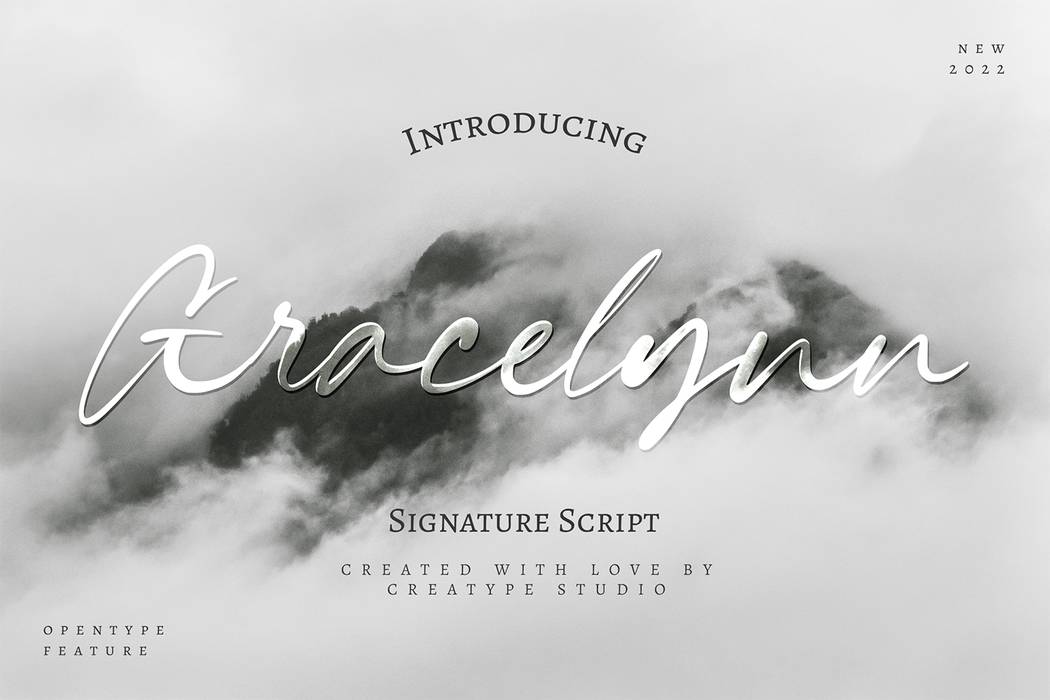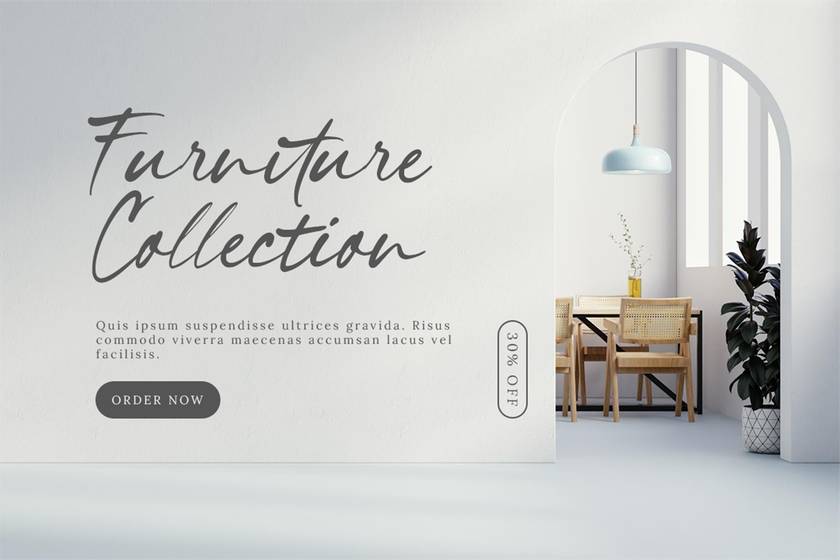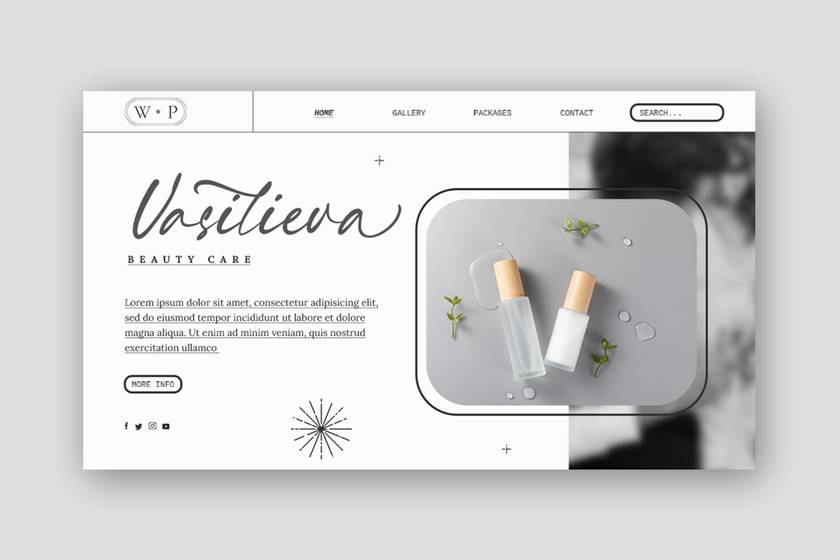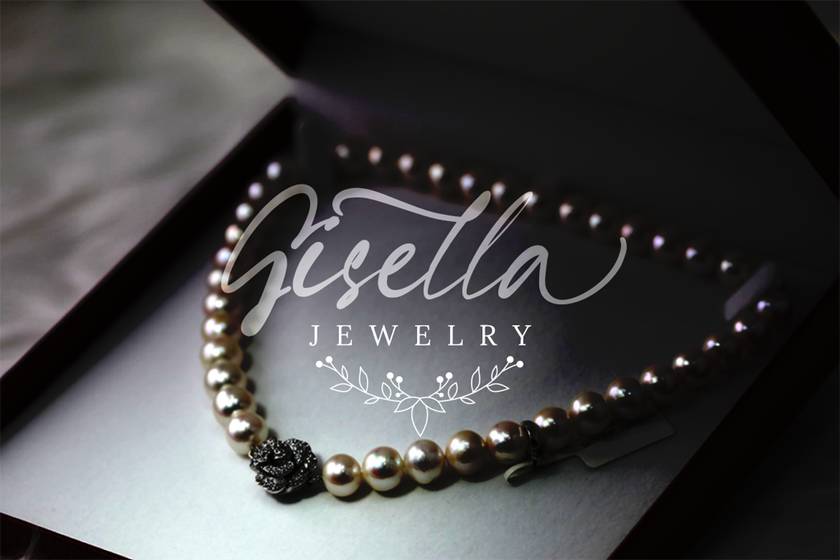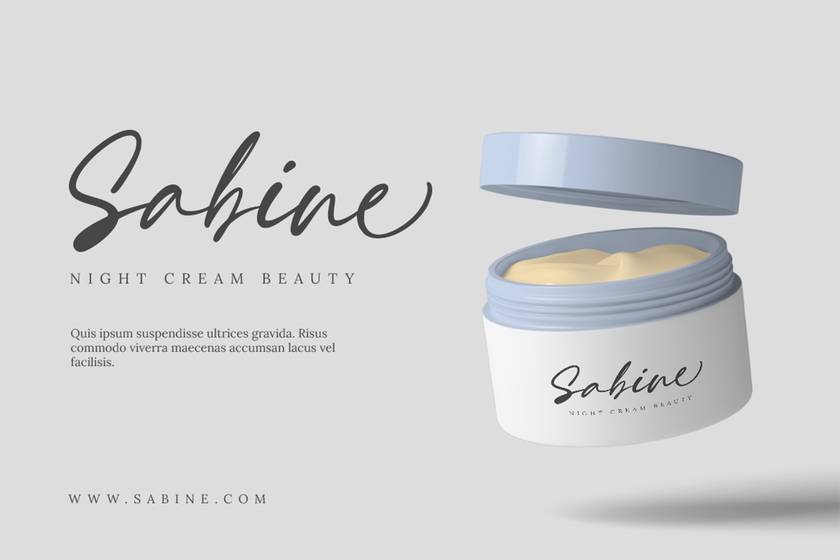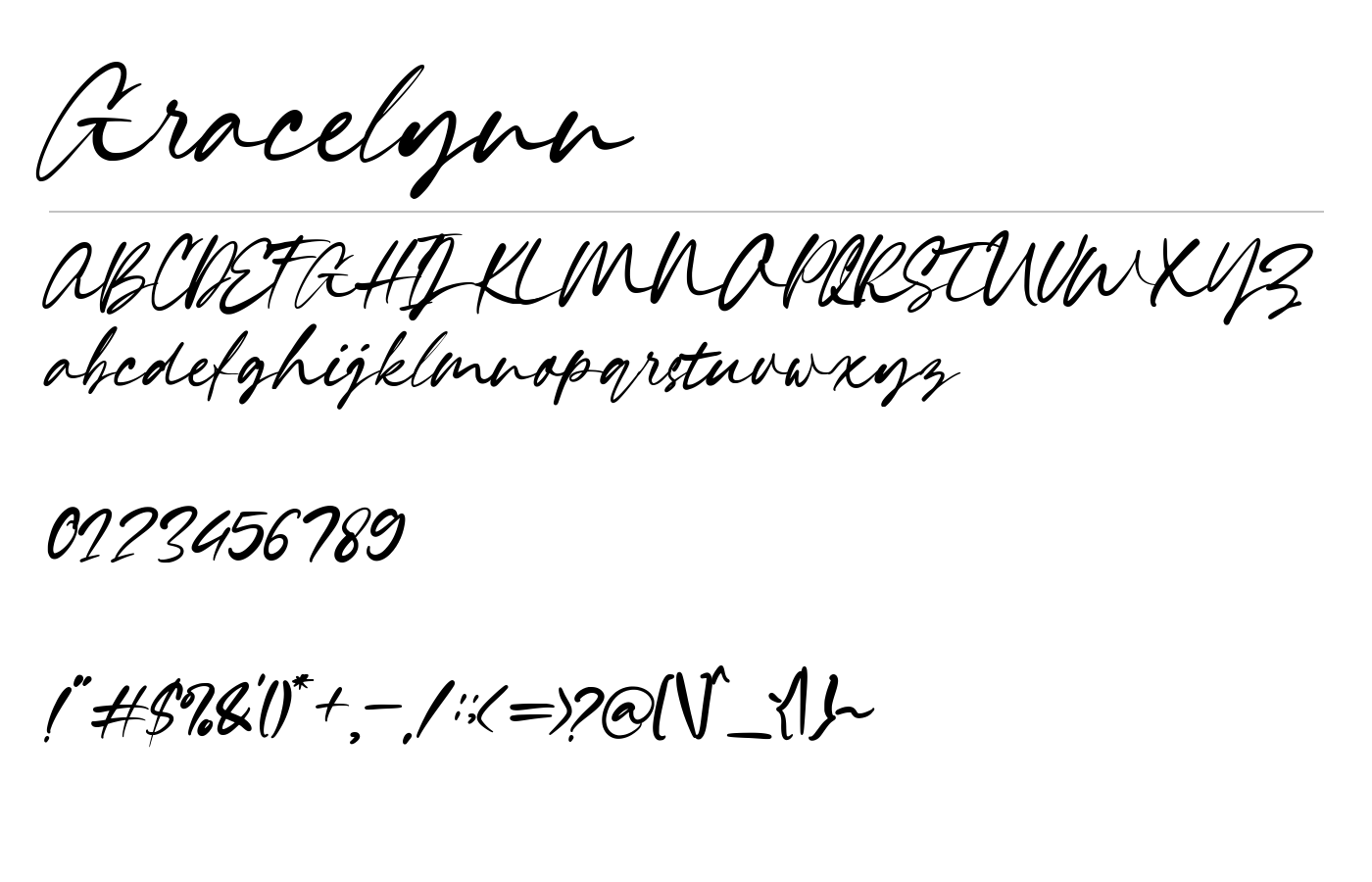
Gracelynn is a stylish and lively script font that mimics natural handwriting with its fluid, slightly irregular strokes and elegant curves. Its varying line weight and informal yet refined style make it perfect for creative branding, invitations, and personal projects where a touch of warmth and personality is desired. This font works well in contexts that call for a modern, approachable feel with a handcrafted charm.
Gracelynn Font
About Gracelynn Font